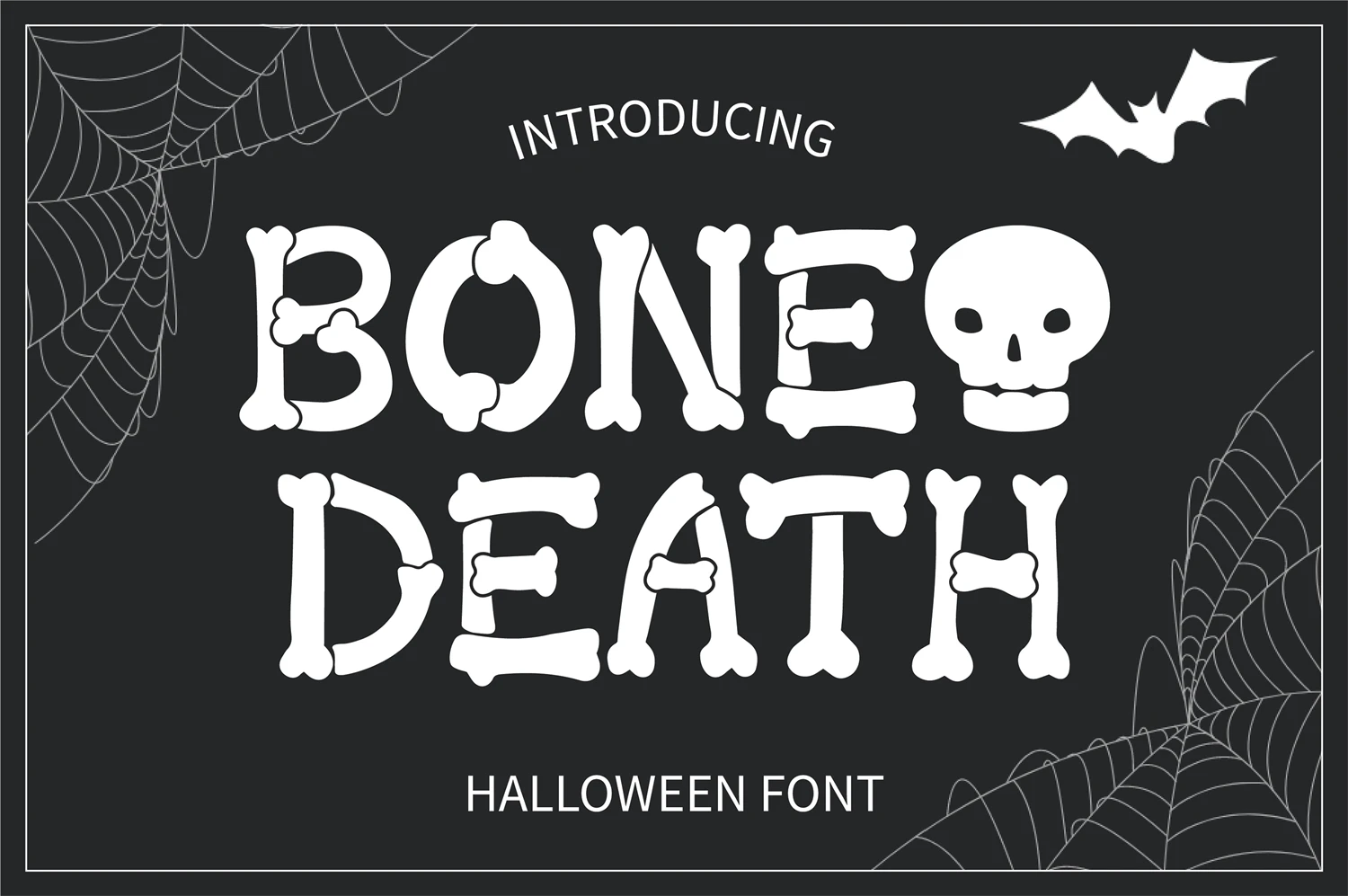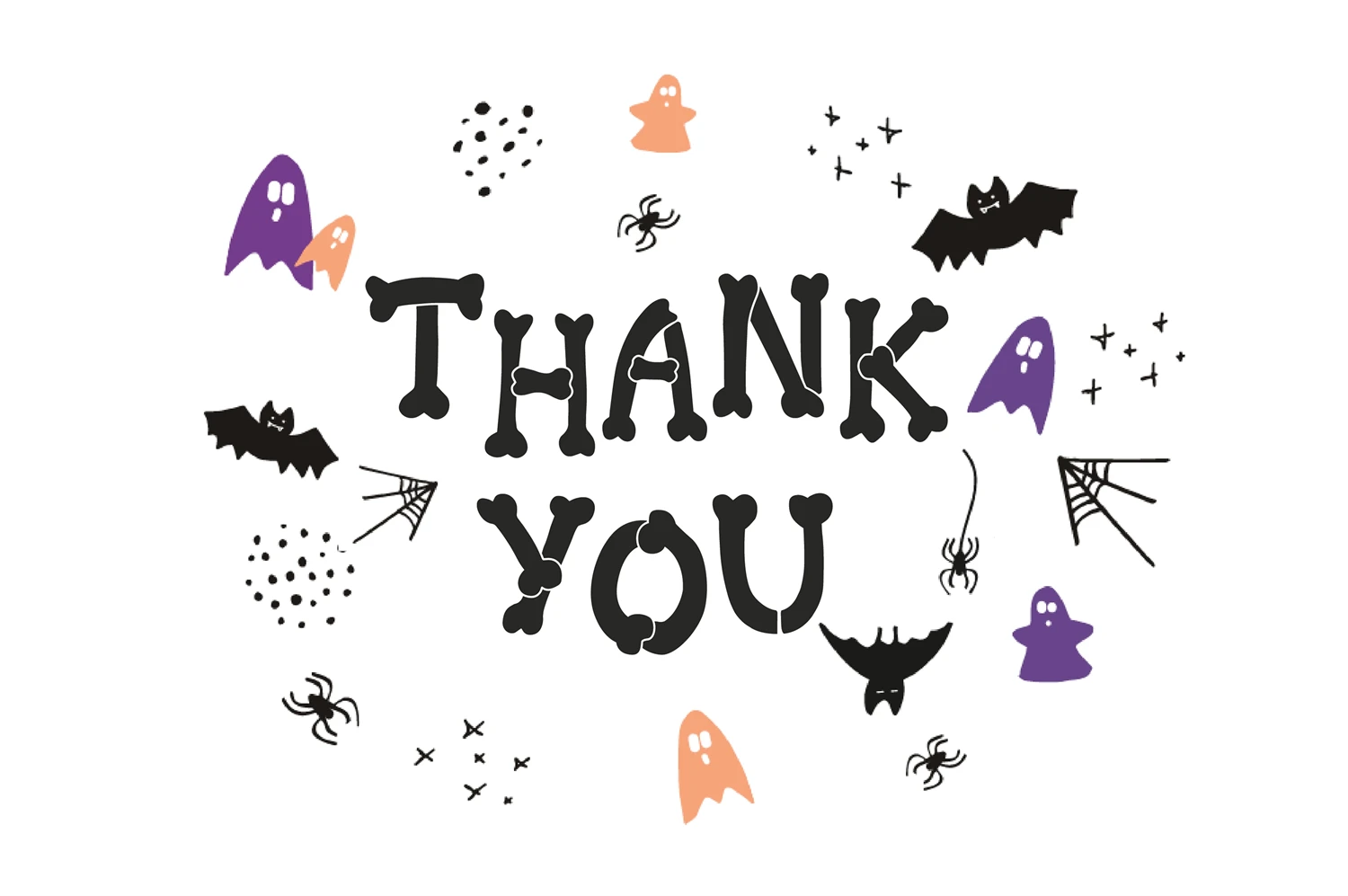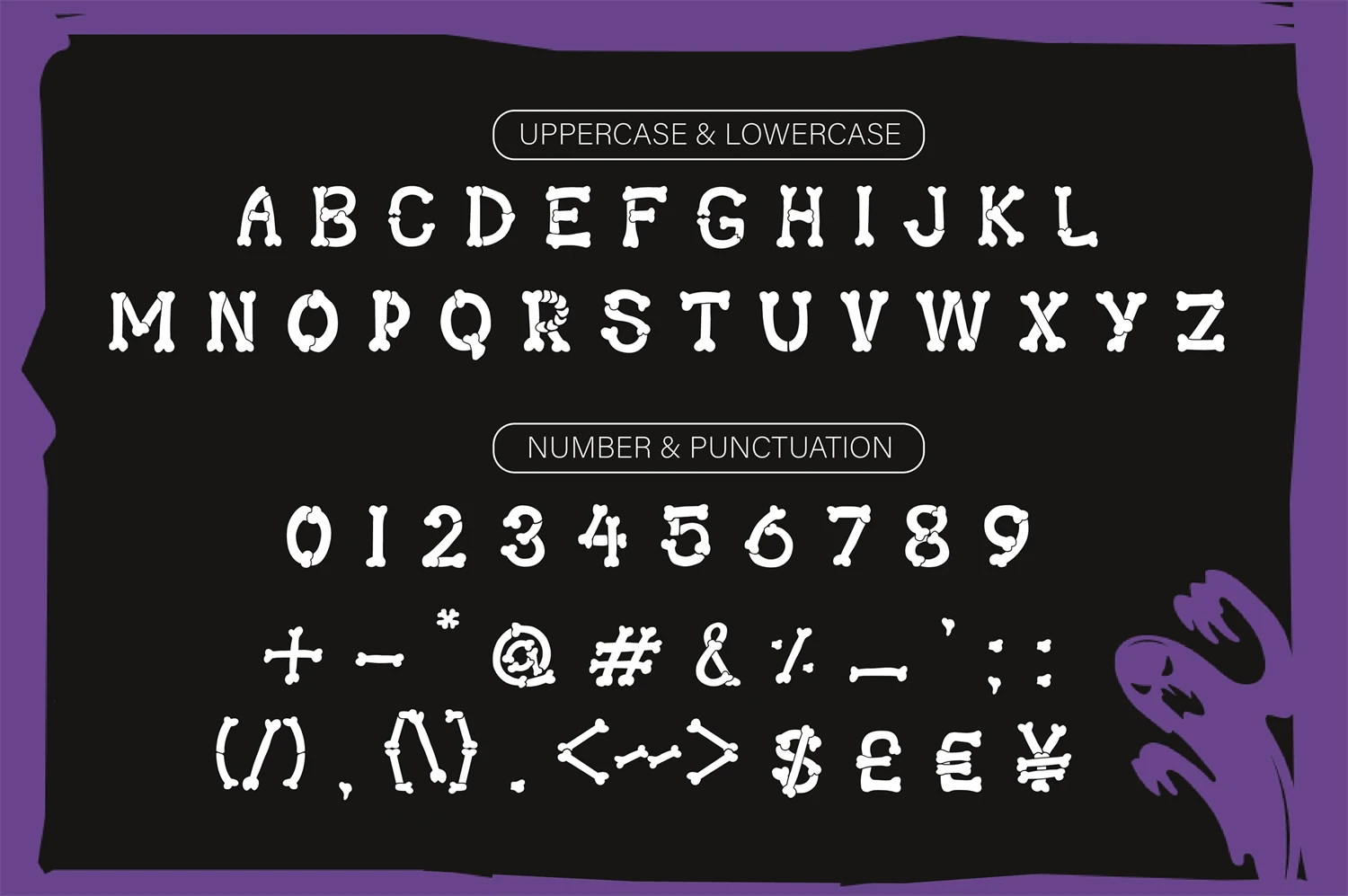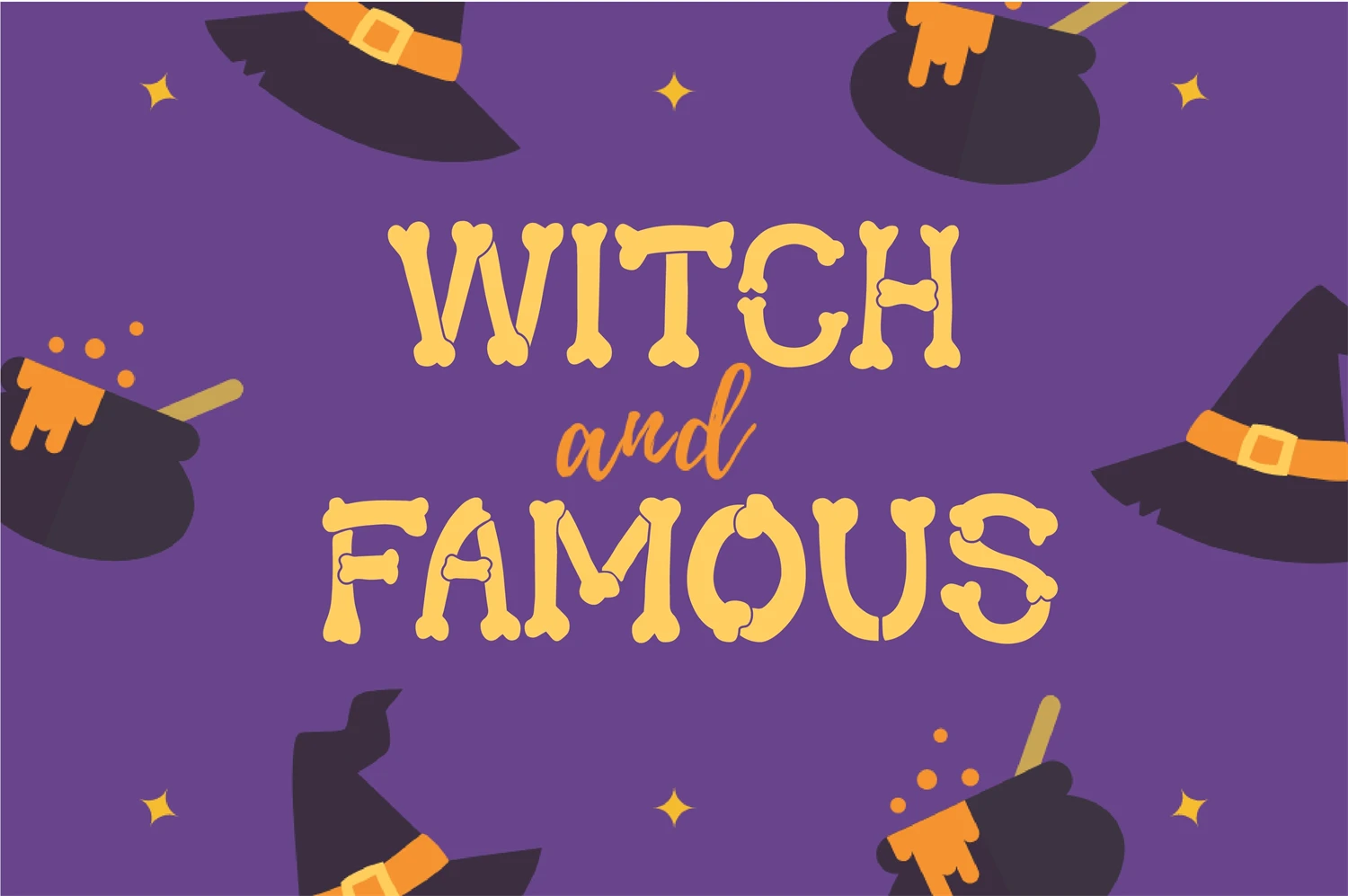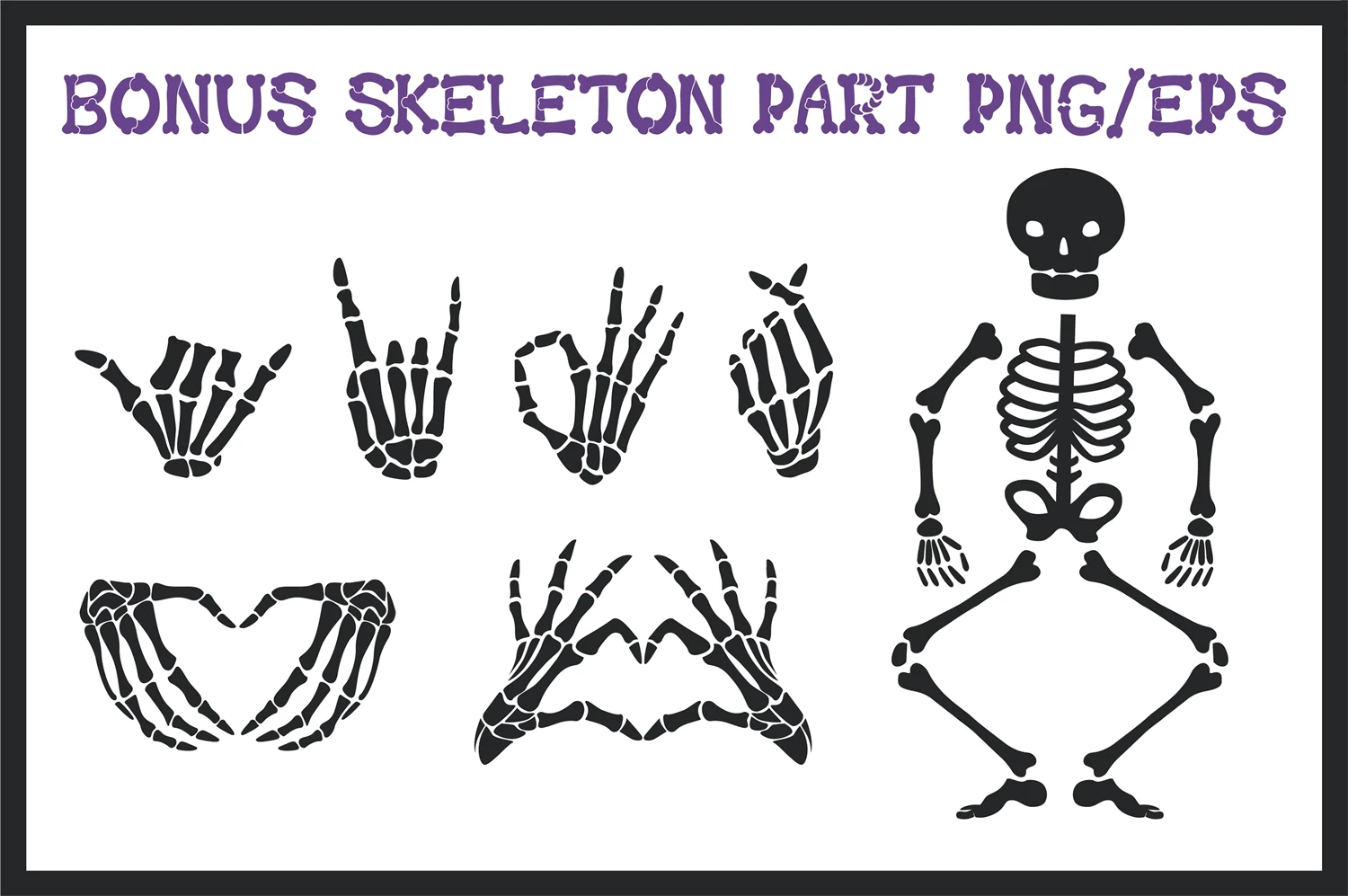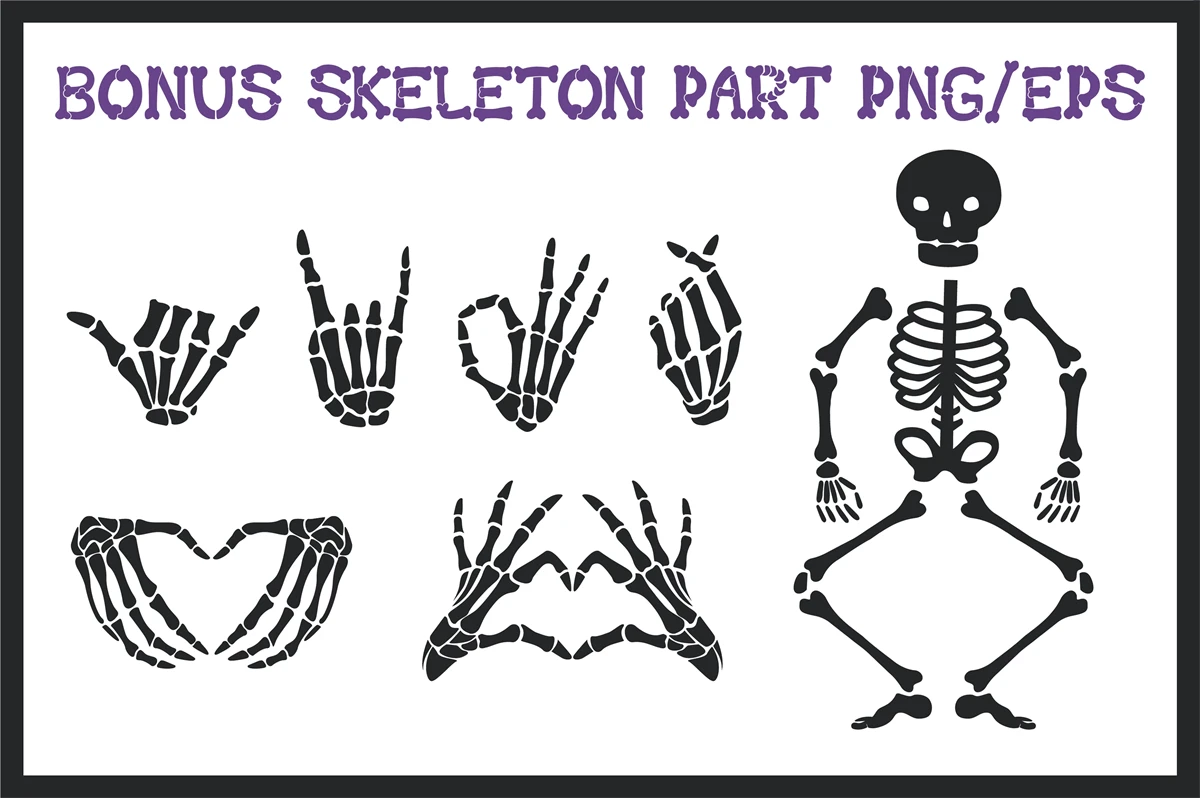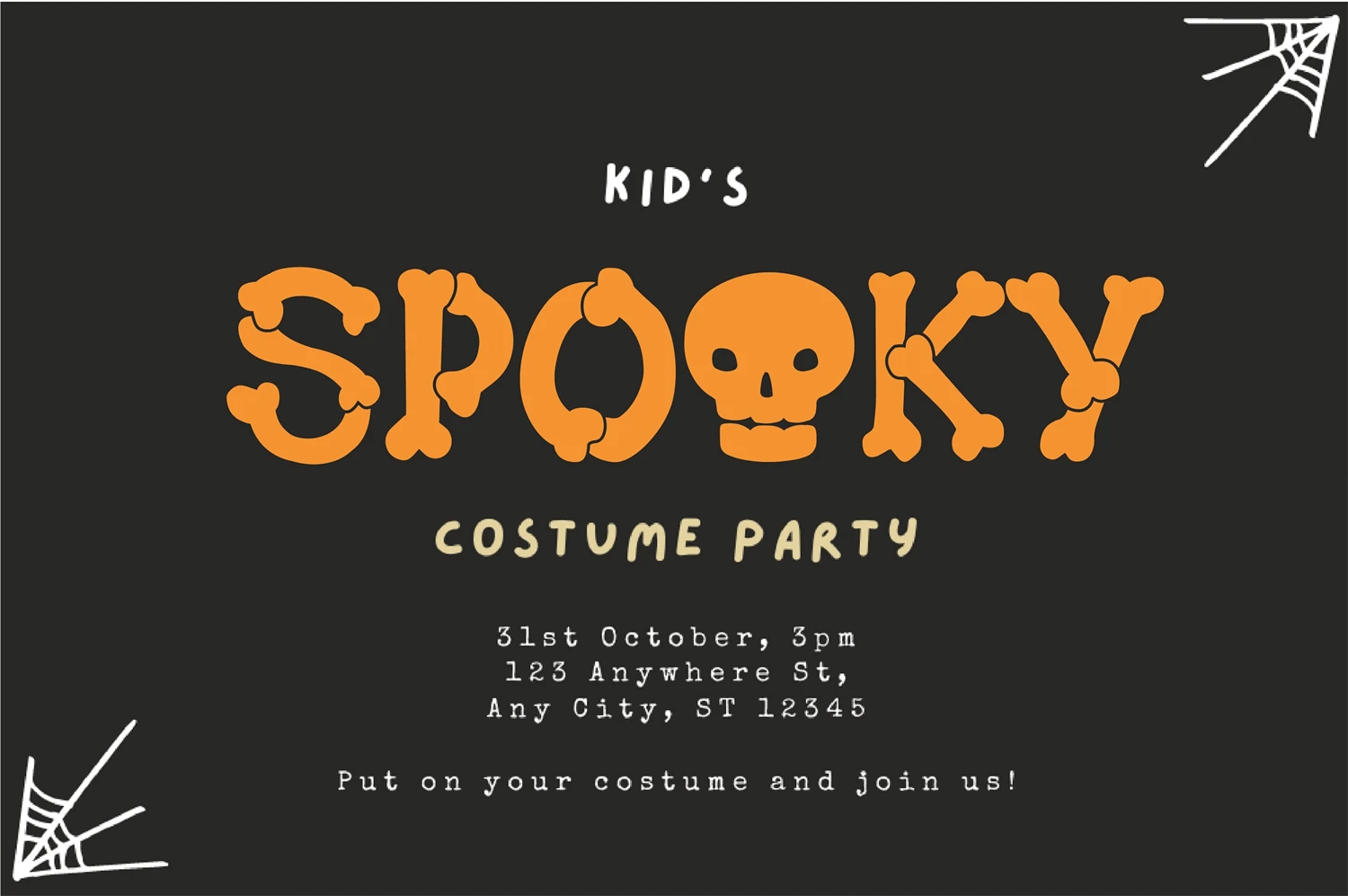
Bone Death is a fun and spooky display font. With its whimsical and mysterious vibe, this font would be the perfect choice for all your Halloween or horror-inspired projects.